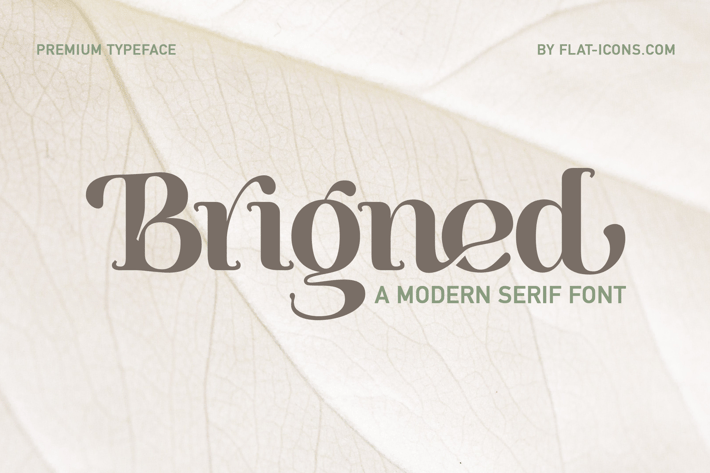
Modern Serif Font
Want to give your brand image a modern and chic twist? Whether you're a trendsetter or a conventional, we have what you need.
Introducing Brigned - A Modern Serif Font.
From logo design to digital and print media, Brigned creates a lasting impression and charm. Give it a try and see how a beautiful font can make all the difference.
Multilingual & Ligature Support
Full sets of Punctuation and Numerals